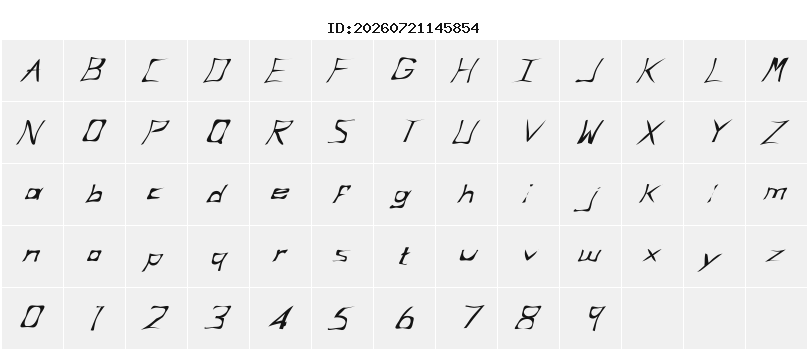
FZ WARPED 34 ITALIC Preview
About FZ WARPED 34 ITALIC.ttf
FZ WARPED 34 ITALIC.ttf is a modern, elegant sans-serif font designed for ultimate readability and visual harmony. Perfect for branding, headlines, web design, and print materials.